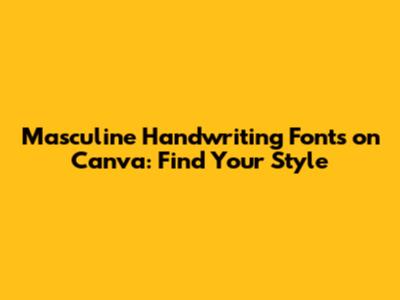
Masculine Handwriting Fonts On Canva: Find Your Style
Hey guys! Looking to add a strong and confident touch to your designs? You've come to the right place! In today's digital world, typography plays a crucial role in conveying the right message. When it comes to designs aimed at a male audience or projects that require a robust and assertive feel, choosing the right font is paramount. Handwriting fonts, in particular, can add a personal and relatable element, but it's essential to select those that exude masculinity rather than femininity. And guess what? Canva is an amazing platform with a plethora of options. We're diving deep into the world of masculine handwriting fonts available on Canva, helping you find the perfect fit for your project. It's not just about slapping any old font on there; it's about finding one that resonates with your vision and speaks directly to your target audience. So, whether you're designing a logo for a sports brand, creating invitations for a bachelor party, or crafting a website for a men's lifestyle blog, the right font will make all the difference. We'll be exploring different styles, considering readability, and offering tips on how to effectively incorporate these fonts into your designs. Let's get started and unleash the power of typography to make your projects truly stand out! After all, the right font is like the perfect handshake – firm, confident, and leaving a lasting impression. Think of fonts like the clothes your words wear; you wouldn't wear a frilly dress to a construction site, would you? Similarly, you need to choose a font that matches the occasion and the message you're trying to convey. So, buckle up, font enthusiasts, and let's explore the world of masculine handwriting fonts on Canva! You'll be amazed at the variety and the impact they can have on your designs. And remember, it's not just about finding a font that looks cool; it's about finding one that tells a story and connects with your audience on a deeper level. So, let's make your words look as good as they sound!
What Makes a Font Masculine?
Okay, so what exactly makes a handwriting font lean towards the masculine side? It's not always obvious, but there are key characteristics we can look for. Generally, masculine fonts tend to have bolder strokes, a more rugged texture, and a sense of strength and stability. They often avoid delicate curves and overly ornate details, opting instead for a more straightforward and assertive appearance. Think about the difference between a flowing, cursive script and a bold, blocky print – the latter often feels more masculine. A font's weight, or how thick the lines are, plays a huge role. Thicker, heavier fonts naturally convey a sense of power and solidity, while thinner, lighter fonts can appear more delicate and feminine. The texture of the font is also important. Some handwriting fonts have a smooth, polished look, while others have a more rough, textured feel, as if they were written with a worn-out pen on rough paper. This rough texture can add a sense of authenticity and ruggedness, making the font feel more masculine. Another factor to consider is the overall shape and structure of the letters. Masculine fonts often have more angular shapes and less rounded curves. They may also have a more condensed or compressed appearance, taking up less horizontal space and creating a sense of density and strength. Think about fonts that mimic the look of architectural blueprints or industrial signage – these often have a strong, masculine feel. Finally, the overall impression and association of the font can also contribute to its perceived masculinity. Fonts that are often used in association with sports, construction, or the military, for example, may be perceived as more masculine, regardless of their specific characteristics. It's all about context and the message you're trying to convey. So, when you're searching for that perfect masculine handwriting font on Canva, keep these characteristics in mind. Look for fonts with bold strokes, rugged textures, angular shapes, and a sense of strength and stability. And remember, the best font is the one that best reflects the overall tone and message of your project.
Top Masculine Handwriting Fonts on Canva
Alright, let's get to the good stuff! Here are some of the top masculine handwriting fonts you can find right within Canva. These fonts are perfect for adding a touch of personality and authenticity to your designs while maintaining a strong and confident feel. I'll give you a quick rundown on each one, highlighting what makes them great and how you can use them effectively.
• League Spartan: Okay, so technically, League Spartan isn't strictly a handwriting font. However, its strong, geometric letterforms and bold weight make it a fantastic choice for a masculine look. It evokes a sense of industrial strength and modernism. This is killer for logos, headings, and anything that needs to shout confidence.
• Bebas Neue: Another non-handwriting option but a very useful one! Bebas Neue is a condensed sans-serif font with clean lines and a tall x-height, giving it a modern and masculine feel. Its narrow profile allows you to pack a lot of text into a small space, making it ideal for headlines, posters, and other display applications.
• Montserrat: While Montserrat is a versatile font, its bold variations can definitely lend a masculine touch to your designs. It's a clean, geometric sans-serif that's easy to read and works well in a variety of contexts. Use it for body text, headings, or even logos.
• Raleway: Raleway is another versatile sans-serif font that can be used to create a masculine look, especially when used in its bolder weights. Its clean lines and modern design make it a great choice for a variety of applications, from websites to print materials.
• Amatic SC: Amatic SC is a hand-drawn font that is very condensed and gives a rugged and playful masculine vibe.
• Permanent Marker: Don't let the name fool you; this font can be surprisingly versatile. It has a bold, marker-like appearance that's perfect for adding a raw, edgy feel to your designs. Use it for headlines, posters, or anything that needs to grab attention.
Remember to play around with different font pairings to see what works best for your project. Try combining a bold, masculine font for your headlines with a more legible and understated font for your body text. And don't be afraid to experiment with different sizes, weights, and colors to create a unique and eye-catching design.
How to Use Masculine Fonts Effectively in Your Designs
Choosing the right masculine font is only half the battle. Knowing how to use it effectively in your designs is crucial to achieving the desired impact. Here are some tips to help you make the most of your chosen font:
1. Consider the Context: Think about the overall tone and message of your design. Is it serious and professional, or more playful and casual? Choose a font that aligns with the context and reinforces your message.
2. Think About Font Pairing: The fonts you use together can have a huge impact on the overall look and feel of your design. Experiment with different font pairings to find combinations that complement each other and create a cohesive visual hierarchy. Try pairing a bold, masculine font for your headlines with a more legible and understated font for your body text.
3. Size Matters: The size of your font can affect its readability and impact. Use larger font sizes for headlines and other important elements to draw attention and create emphasis. Use smaller font sizes for body text to ensure readability.
4. Weight and Style: Experiment with different font weights and styles to create visual interest and hierarchy. Use bold weights to highlight important words or phrases, and italic styles to add emphasis or indicate quotes.
5. Color and Contrast: The color of your font and its contrast with the background can affect its readability and impact. Choose colors that are easy to read and that complement the overall color scheme of your design. Use high contrast between the font and background to ensure readability, especially for smaller font sizes.
So there you have it! A deep dive into the world of masculine handwriting fonts on Canva. Hopefully, this guide has given you the knowledge and inspiration you need to choose the perfect font for your next project. Remember, the right font can make all the difference in conveying the right message and connecting with your target audience. So, take your time, explore your options, and don't be afraid to experiment. And most importantly, have fun! Designing with fonts is an art form, so embrace your creativity and let your imagination run wild. With a little bit of practice and experimentation, you'll be able to create stunning designs that are both visually appealing and effectively communicate your message. Now go forth and conquer the world of typography! And remember, when in doubt, choose the font that makes you feel like a boss. Because when you feel confident in your design choices, your audience will too.